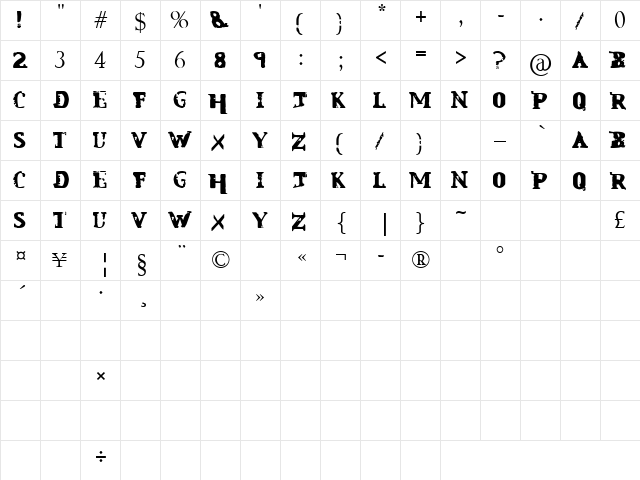
Mindless Self Indulgence Regular
Design Context for Mindless Self Indulgence Typeface
Mindless Self Indulgence is a composed and adaptable typeface that performs quietly and consistently across a wide range of design contexts.